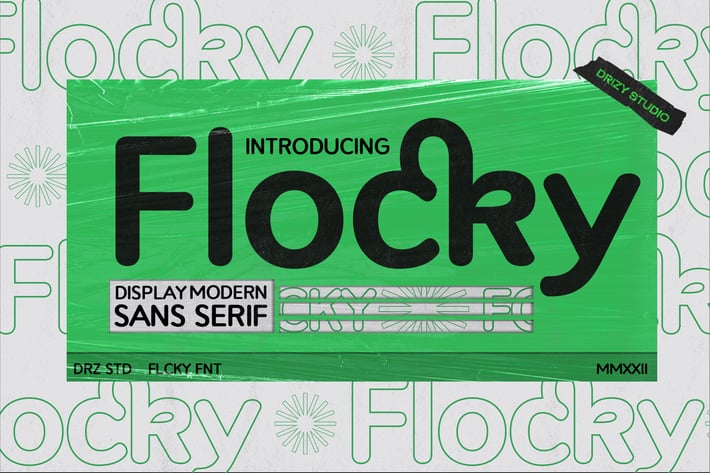
Flocky - Modern Rounded Font
Flocky is a Modern Rounded Font from Drizy studio. Offering all the basic styles you will need especially for modern theme project.
Faylath Features:
Multilinguals
Alternates
Ligatures